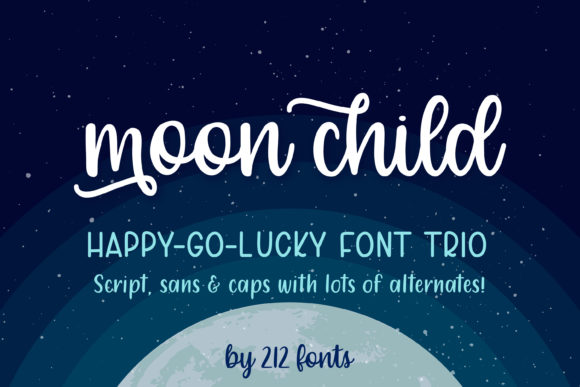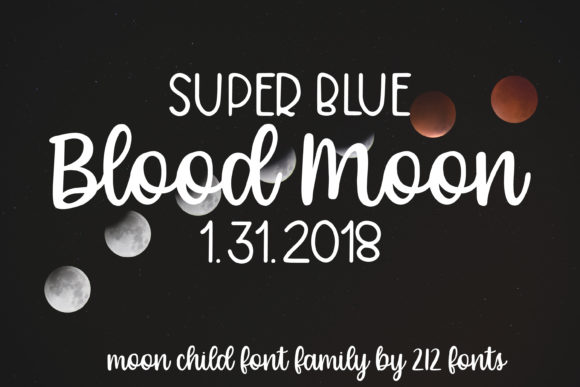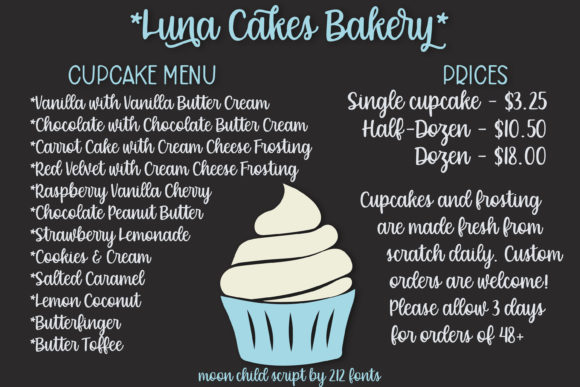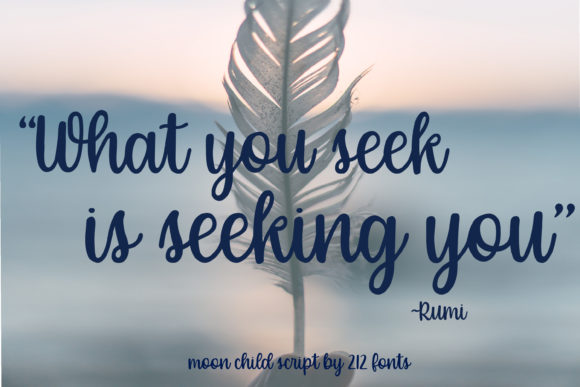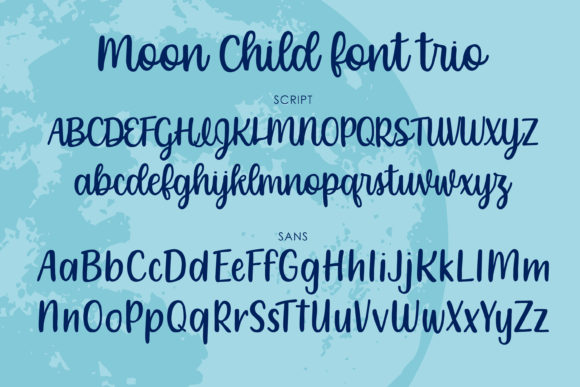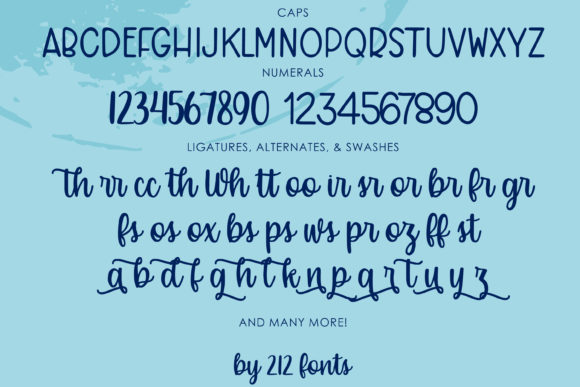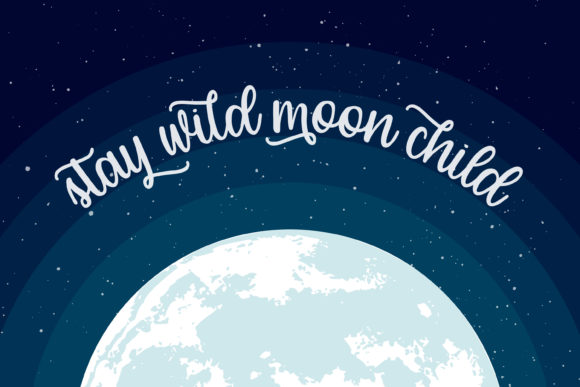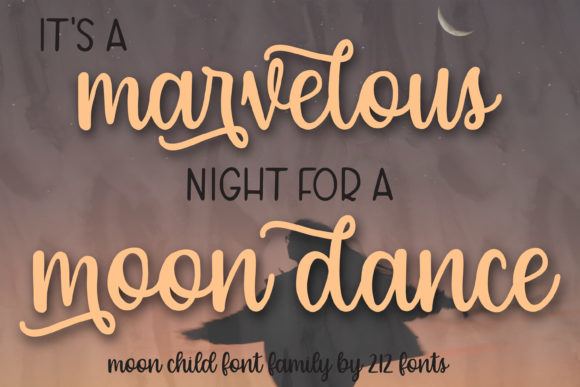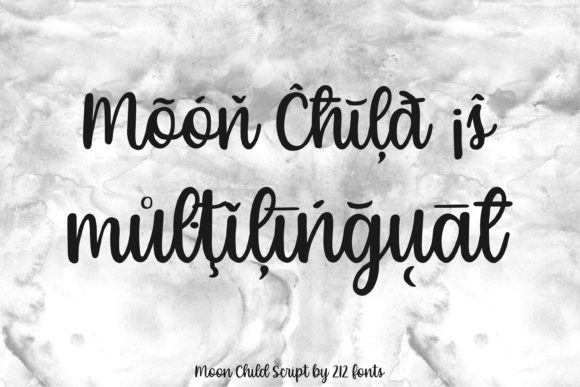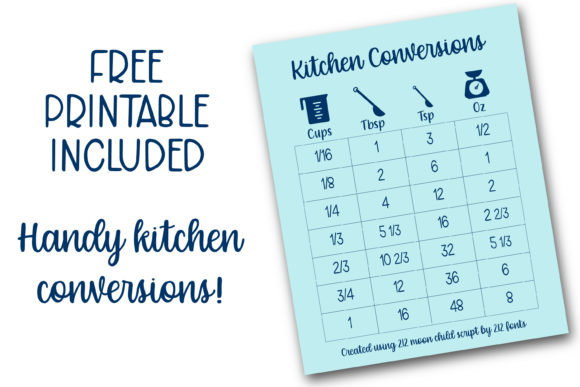
HomeScript FontsMoon Child Font Script Fonts Moon Child Font FacebookXPinterestWhatsApp Moon Child Font Poster 2 Moon Child Font Poster 3 Moon Child Font Poster 4 Moon Child Font Poster 5 Moon Child Font Poster 6 Moon Child Font Poster 7 Moon Child Font Poster 8 Moon Child Font Poster 9 Moon Child Font Poster 10 Moon Child Font Poster 11 Moon Child Font Poster 12 Moon Child Font Poster 13 Moon Child Font Poster 14 About Moon Child Font Moon Child is a joyful, handwritten font that includes a script, sans, caps version that work great together! DOWNLOAD ON CREATIVE FABRICAThis font is sold and delivered by Creative Fabrica. Font Canyon may earn a commission if you buy through this link. People also explored Algorisma Font Green Curry Font Melya Font Happy Cow Font Hock Copper Font Berliansa Pride Font Salya Font Everly 348 0 TagsMoon Child Font Previous articleQueenie FontNext articleAna Bryan Font LEAVE A REPLY Cancel reply Comment: Please enter your comment! Name:* Please enter your name here Email:* You have entered an incorrect email address! Please enter your email address here Website: Save my name, email, and website in this browser for the next time I comment. Personal Use Free Advantage Personal Use Free Read more about this font Legacy Personal Use Free Read more about this font Amellis Path Personal Use Free Read more about this font Zeshane Personal Use Free Read more about this font BLOG The 10 Best Handwriting Fonts to Add Personality to Your Designs 10 of the Best Handwriting Fonts for Adding Personality to Your Designs There will undoubtedly be no other better choice than handwriting fonts to give... Transform Your Website: Elevate Your Typography with 7 Best Web Font Generators Top 10 Handwritten Fonts That Elevate Your Designs Best Fonts for T-Shirt Design – Top 2025 Picks